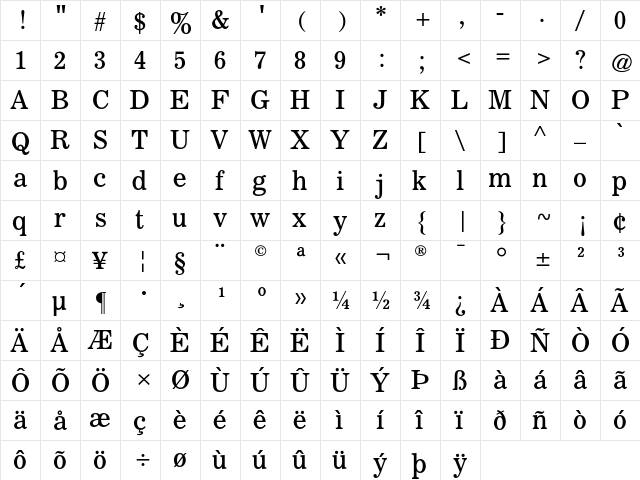
News AT Number Two Regular
Design Context for News AT Number Two Typeface
News AT Number Two takes a measured approach to typography — its balanced proportions and neutral character make it a reliable workhorse for both digital and print work.